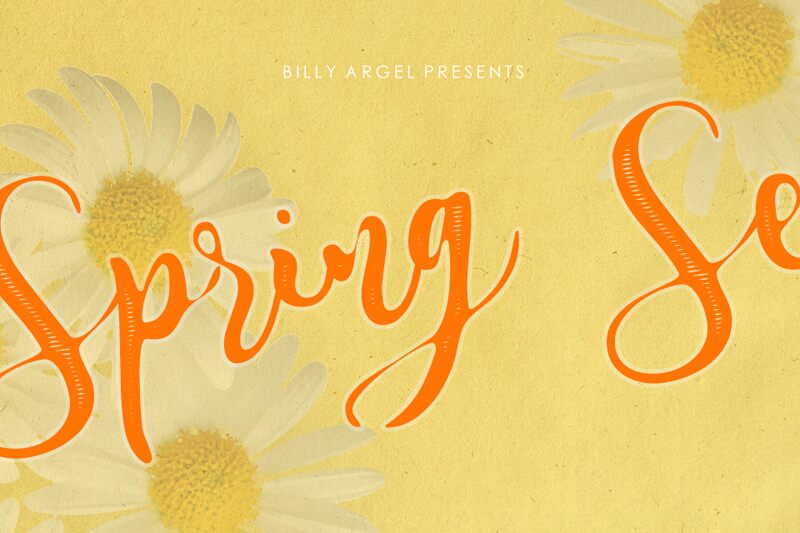
Spring Season, crafted by Billy Argel Fonts, is an exquisite eroded script font. Its semi-light weight lends a delicate touch to any project, making it ideal for romantic wedding invitations or whimsical event flyers. Bring life to your nature-themed designs or add a nostalgic flair to vintage-inspired logos. Whether it's creating heartfelt greeting cards or enhancing blog headers with a touch of nostalgia, Spring Season will effortlessly capture attention and evoke emotions.
With its elegant strokes and weathered charm, this font is the perfect choice for those seeking a unique blend of elegance and rusticity.